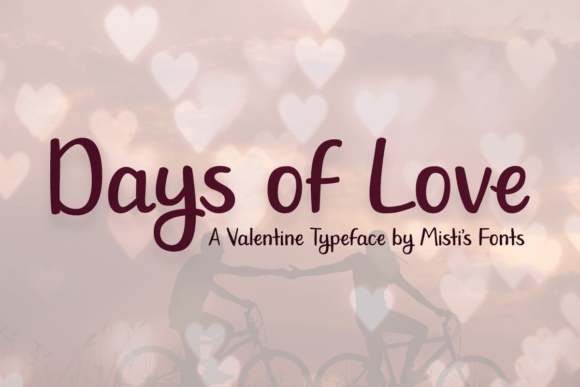
Days of Love Font: The Perfect Handwritten Font for Valentine’s Day
Valentine’s Day is just around the corner, and what better way to celebrate romance than with a beautiful, charming font that exudes warmth and playfulness? Look no further than the Days of Love font, a stunning handwritten font that is perfect for all your Valentine’s Day projects. Whether you’re creating cards, invitations, or love notes, Days of Love adds a heartfelt touch to every design.
What Makes Days of Love Font So Special?
The Days of Love font is a unique and eye-catching handwritten font that is designed to capture the essence of love and romance. Its charming and playful style makes it perfect for a variety of design projects, from Valentine’s Day cards and invitations to social media graphics and blog posts.
- Handwritten with love: The Days of Love font is carefully crafted to resemble handwritten text, giving it a warm and personal touch.
- Perfect for Valentine’s Day: The font’s romantic and playful style makes it ideal for Valentine’s Day projects, but it’s also versatile enough to use for other designs throughout the year.
- Easy to read: Despite its handwritten style, the Days of Love font is easy to read, making it perfect for use in a variety of design projects.
Design Inspiration with Days of Love Font
The Days of Love font is incredibly versatile and can be used in a variety of design projects. Here are a few ideas to get you started:
- Valentine’s Day cards: Create beautiful, one-of-a-kind Valentine’s Day cards for your loved ones using the Days of Love font.
- Invitations: Design custom invitations for Valentine’s Day parties, weddings, or other romantic events using the Days of Love font.
- Love notes: Add a personal touch to your love notes with the Days of Love font, making them extra special and meaningful.
- Social media graphics: Use the Days of Love font to create eye-catching social media graphics for Valentine’s Day, such as Facebook posts, Instagram stories, and more.
Tips and Tricks for Using Days of Love Font
Here are a few tips and tricks to help you get the most out of the Days of Love font:
- Pair with complementary fonts: Pair the Days of Love font with complementary fonts to create a unique and visually appealing design.
- Experiment with colors: Try out different colors and color combinations to find the perfect look for your design.
- Use in combination with graphics: Use the Days of Love font in combination with graphics, such as hearts, flowers, or other romantic symbols, to add an extra touch to your design.